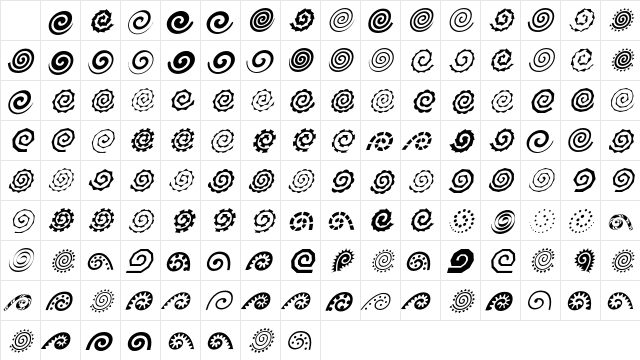
Complete Altemus SpiralsItalic glyph index. Displaying only characters natively supported by Altemus SpiralsItalic font.
Altemus is a composed and adaptable typeface that performs quietly and consistently across a wide range of design contexts. The slanted form adds forward momentum and visual energy.